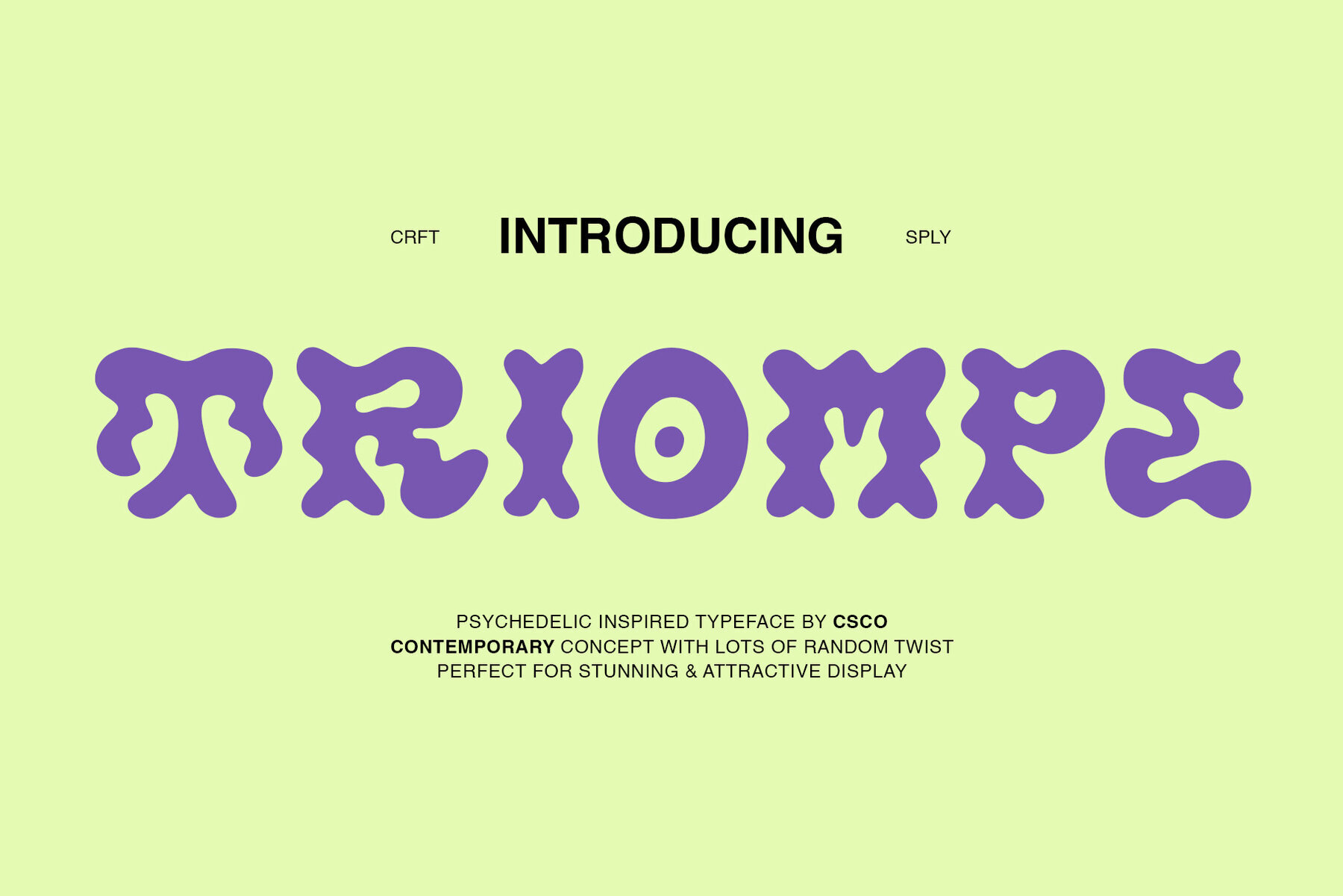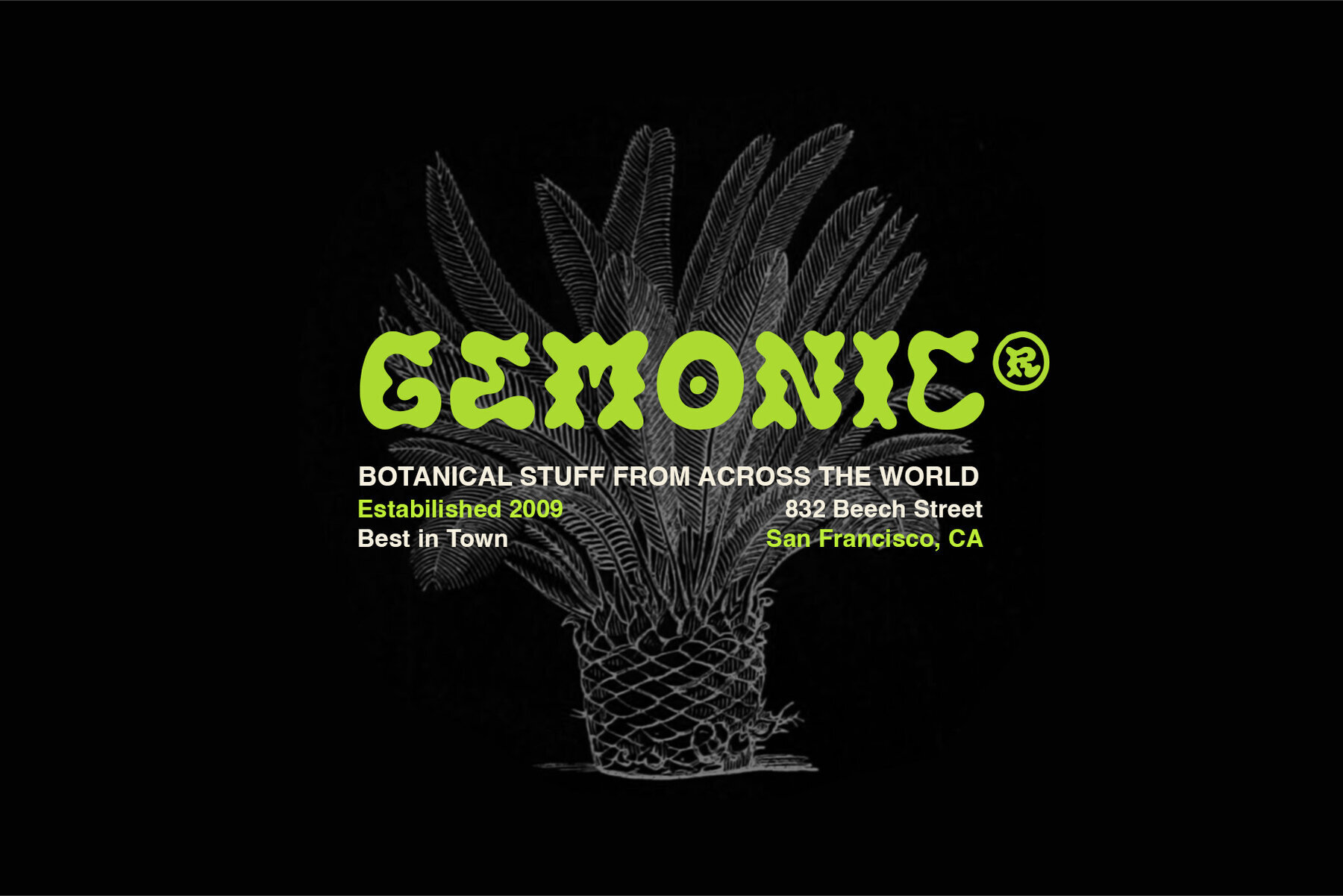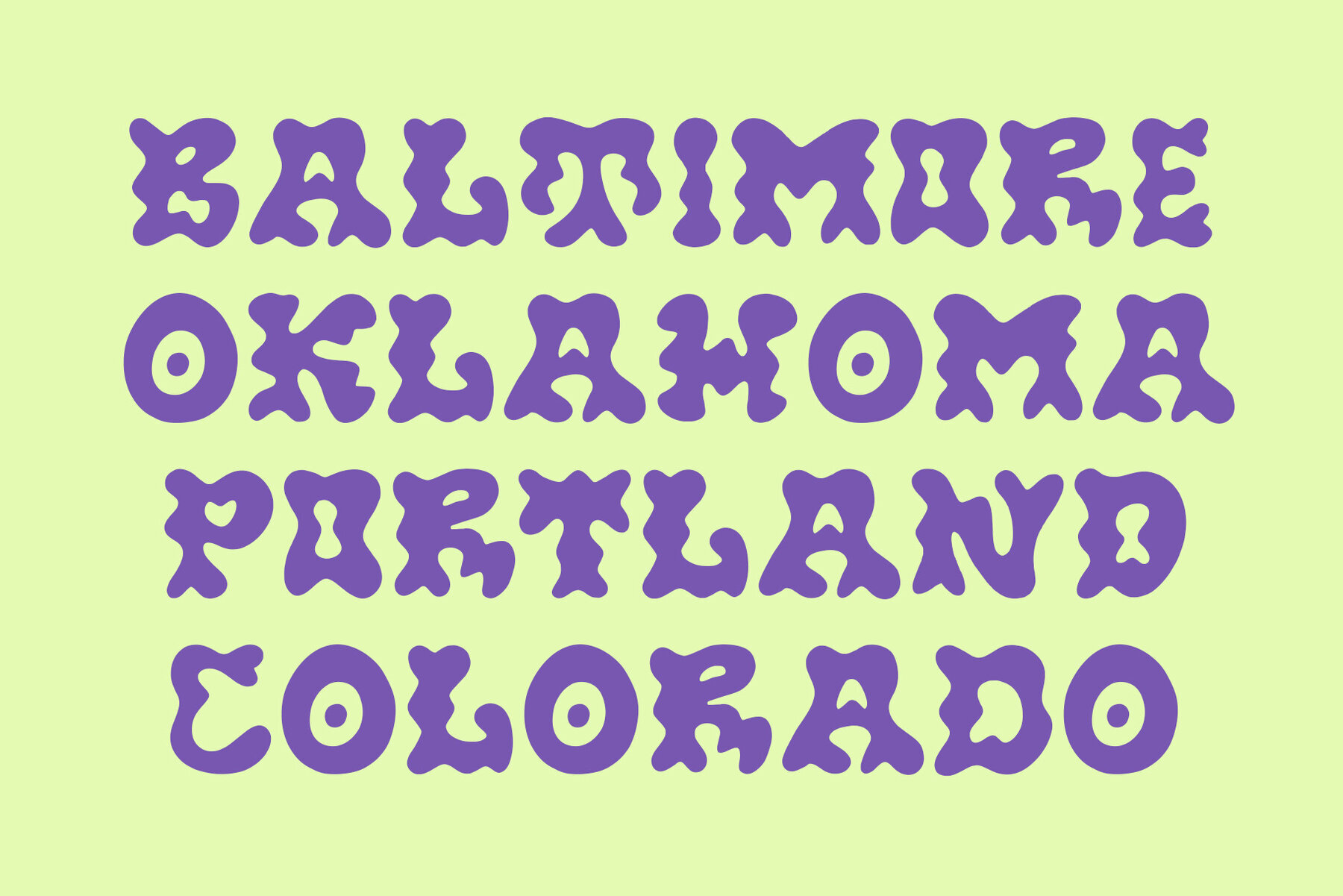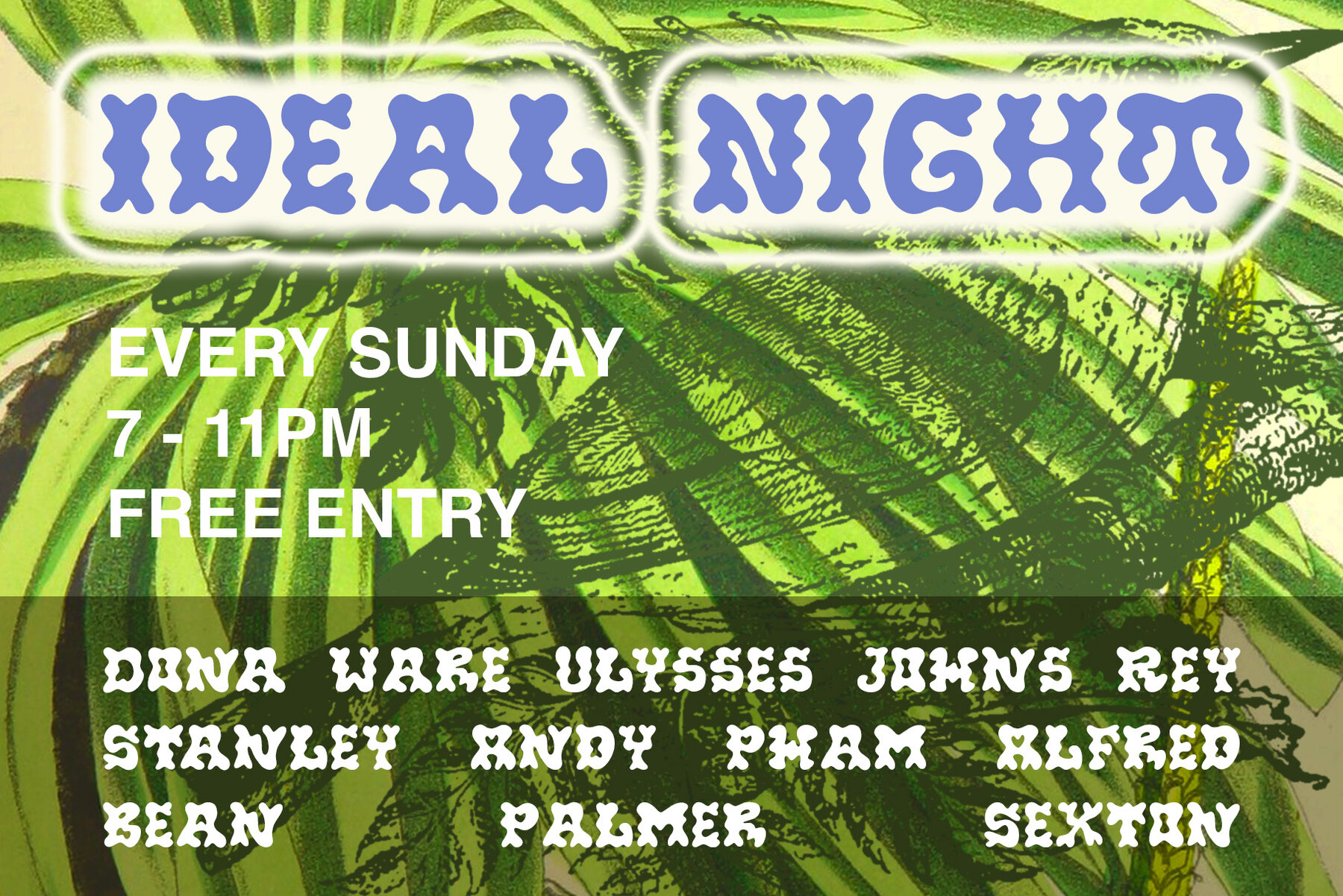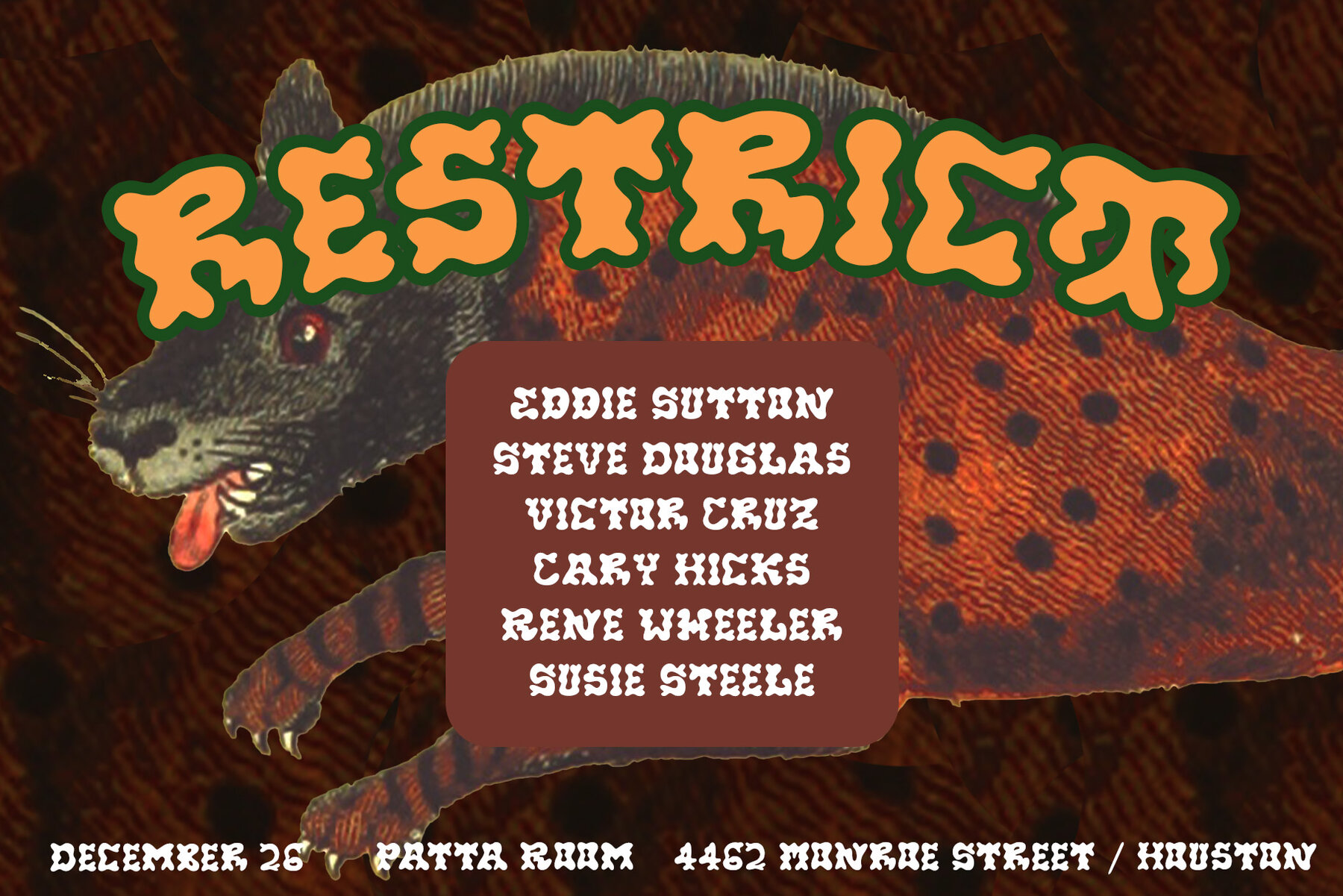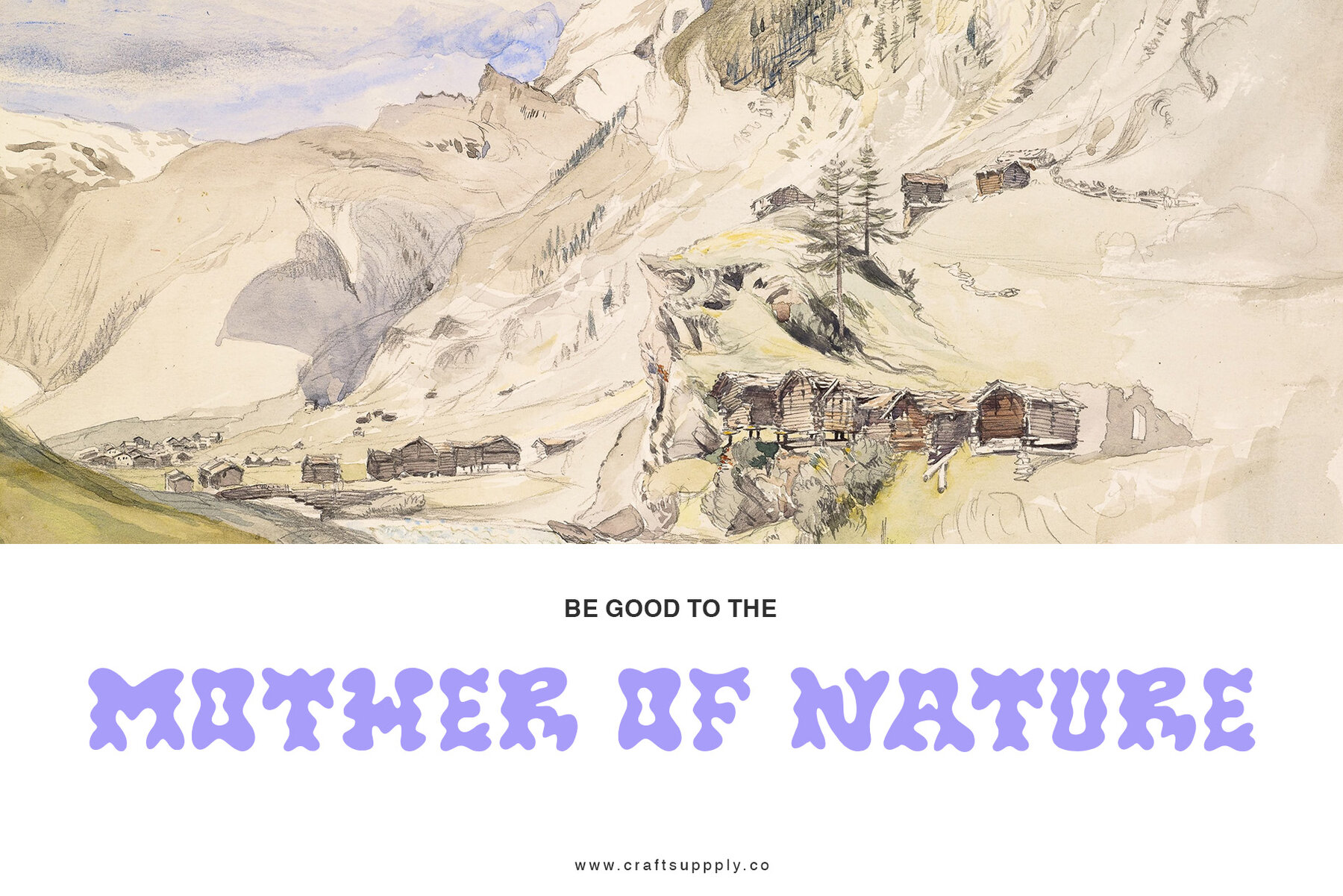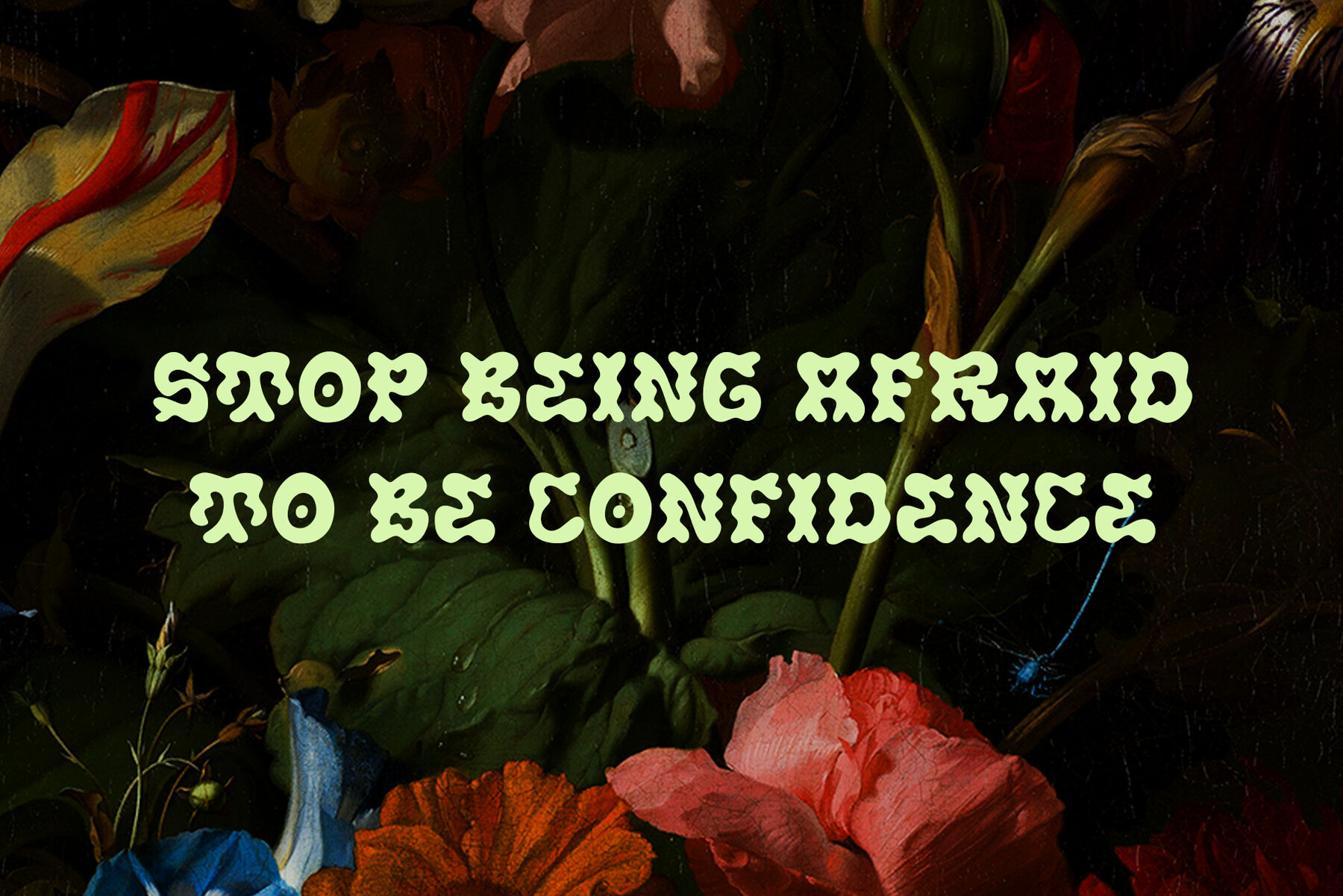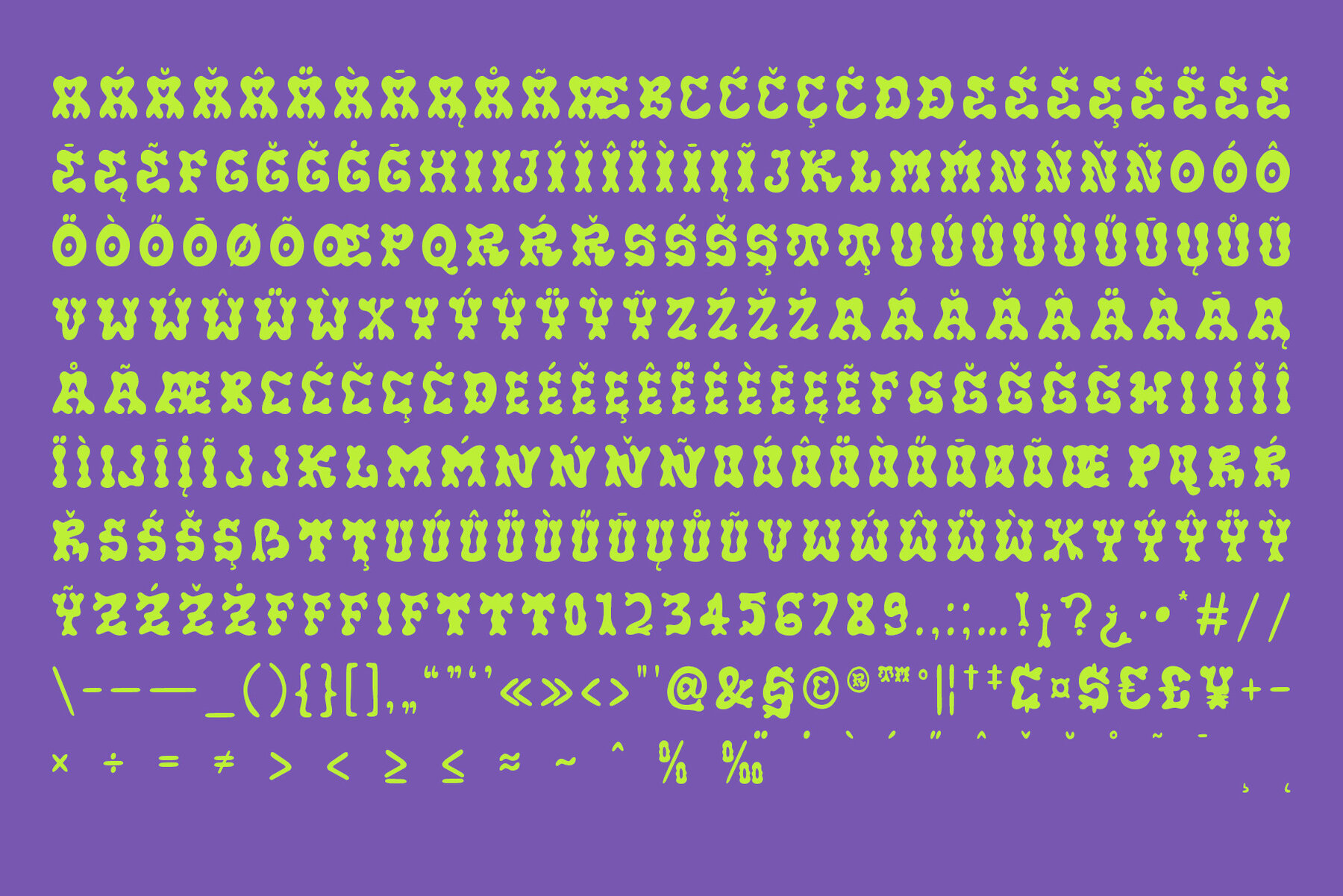
Triompe Font
expand_font Triompe Font Experience the mind-bending allure of Triompe, a psychedelic typeface that adds a trippy twist to your creative projects - from vintage designs... SKU T18704 70s,80s,Advert,Beach,Beauty,Big,Bold,Book,Card,Cosmetics,Dramatic,Eighties,Elegant,Expensive,Fashion,Fashionable,Fat,Feminine,Food,Greeting,Hair,Haircare,Invitation,Logo,Loud,Ni,Oldfashioned,Organic,Playful,Posh,Retro,Serif,Skincare,Summer,Variable,Vintage,Wedding,Skincare Explore Exceptional Fonts for Digital and Traditional Media Fontpath offers a large variety of fonts for every designer, all at affordable prices and in multiple formats. Browse our best in class fonts today for all your creative needs, you can find everything you need right here at our site! Fonts,sans,sans serif,retro,script,decorative,title,FontPath 20140312040223 Fontpath offers 200,000+ of the most professional fonts found online, start downloading today! Real-Time Font Discovery at Fontpath
Triompe Font